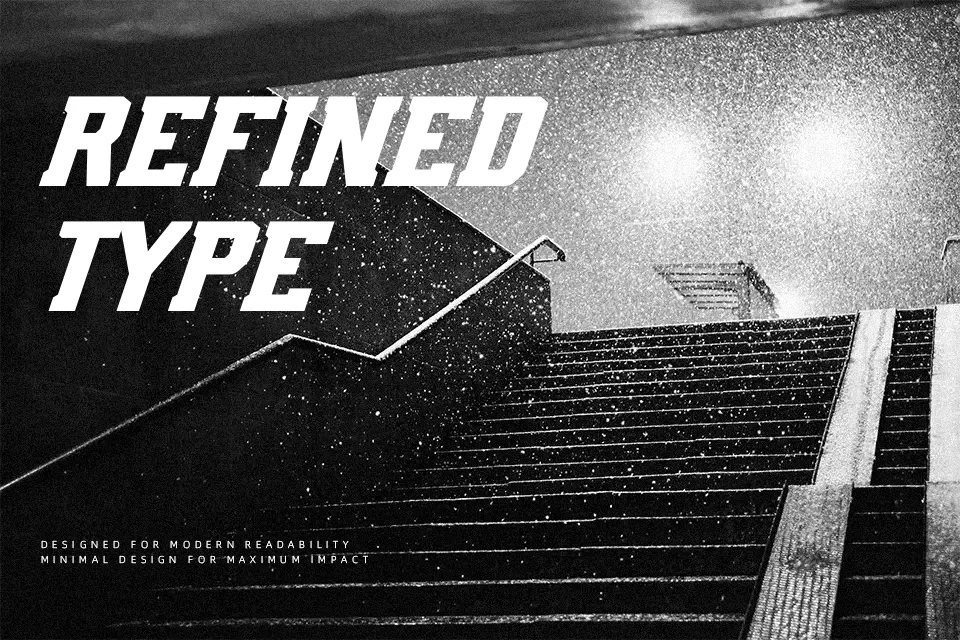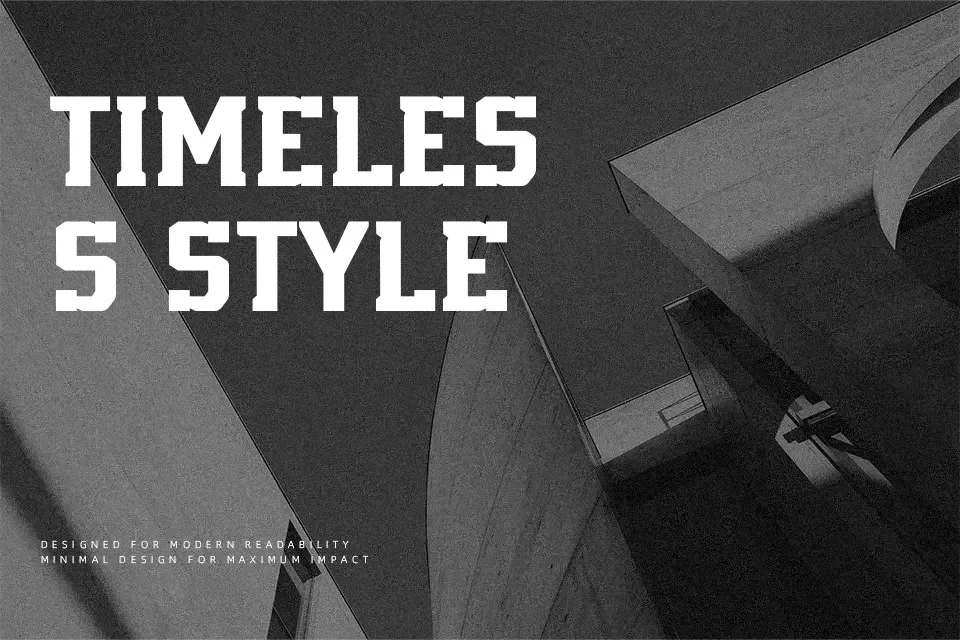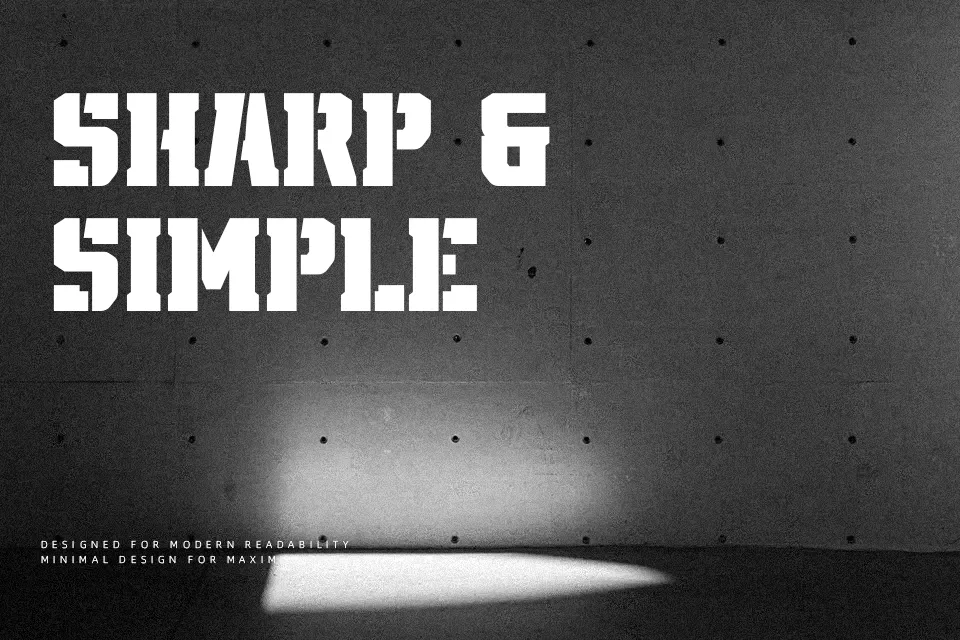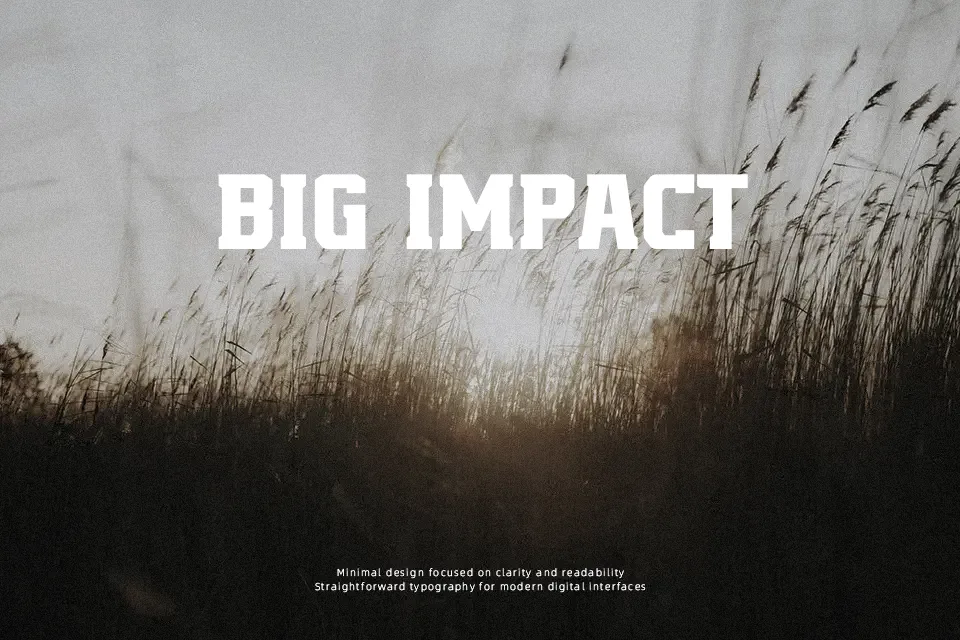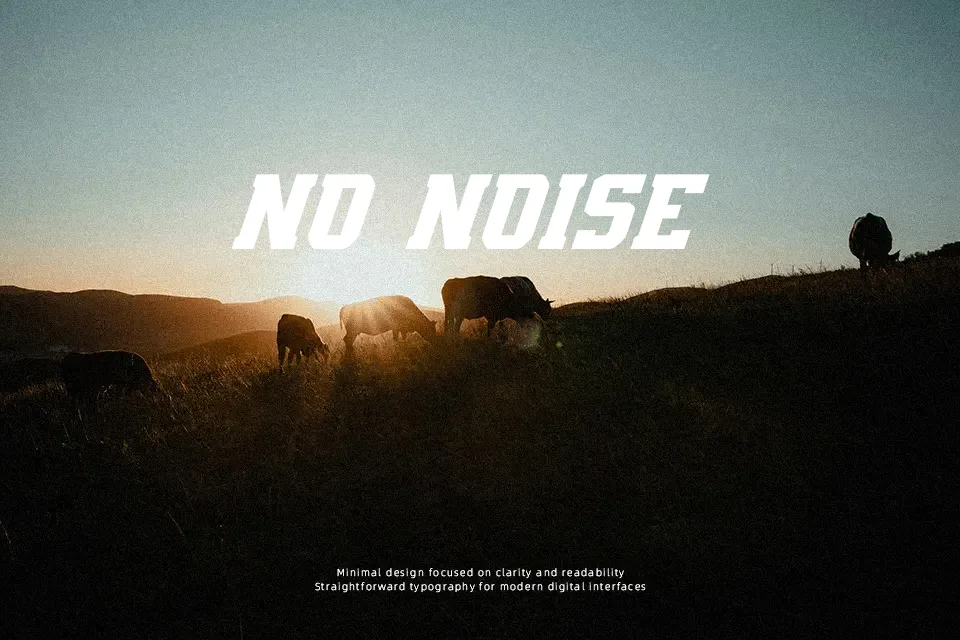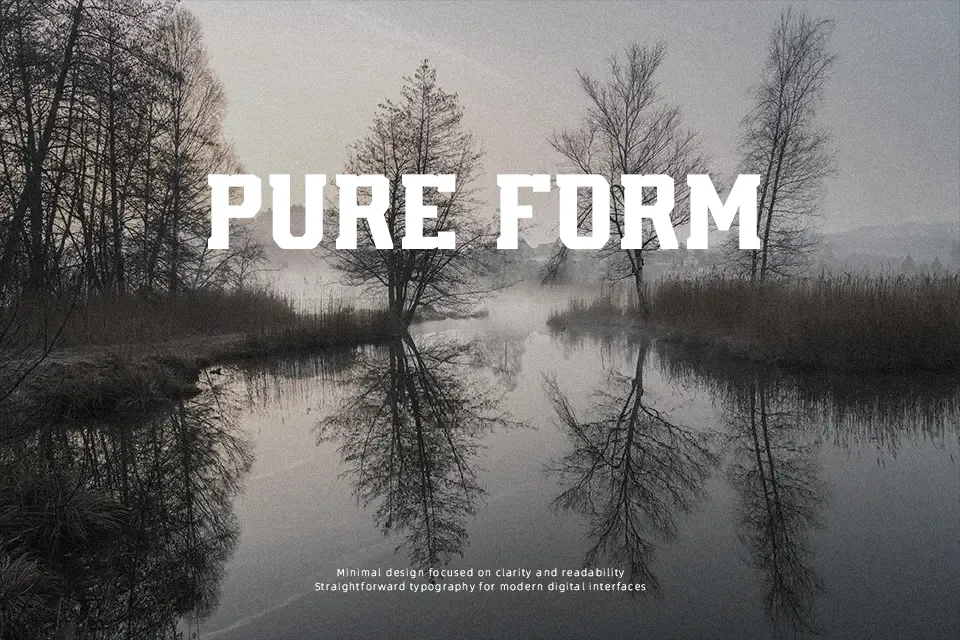
AZN Knuckles Font
Designed by Athaya
AZN Knuckles combines chunky strokes, angled serifs, and tight spacing to create a strong varsity-inspired display look with a touch of retro attitude. Its letterforms feel athletic and structured, with defined edges that stand out in logos, jersey numbers, and bold titles. The trial family includes multiple styles such as Defined Light, Regular, Regular Italic, and Stencil Bold, giving you flexibility for hierarchy and contrast within the same visual language. It works well when you need loud, characterful type for sports teams, gaming identities, or vintage-themed posters, but it is too heavy and stylized for long paragraphs or formal editorial layouts. Use it when you want impact and a sporty vibe, not when subtlety or high-volume reading is required.
sports team logos and jerseys
gaming or esports wordmarks and overlays
streetwear or athletic brand headlines
retro or varsity-themed poster titles
long paragraph text or body copy
formal corporate reports or documents
minimalist UI design or app interfaces
small caption sizes where fine legibility is critical
Perfect for branding, gaming, and logo, with a bold and display style.